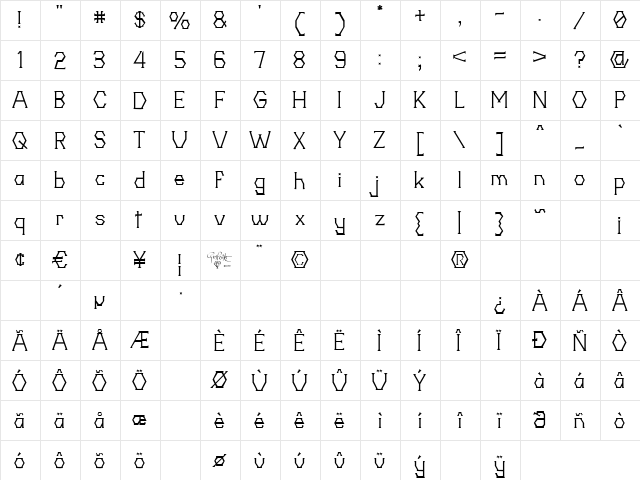
20th Centenary Faux Regular
Design Context for 20th Centenary Faux Typeface
20th Centenary Faux is a composed and adaptable typeface that performs quietly and consistently across a wide range of design contexts.